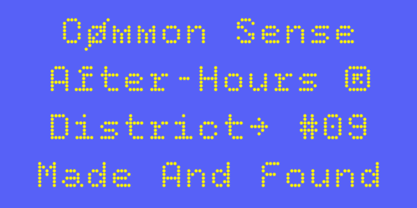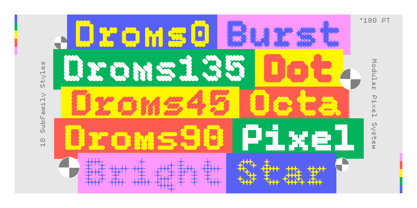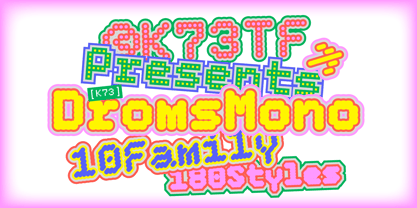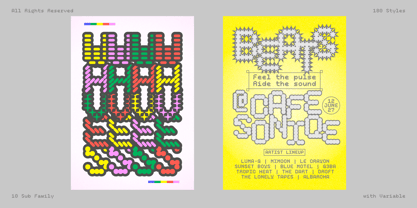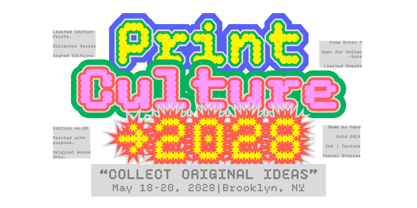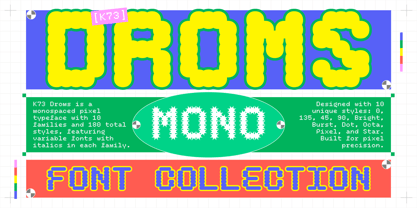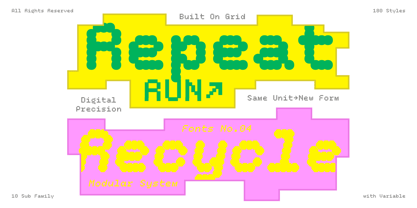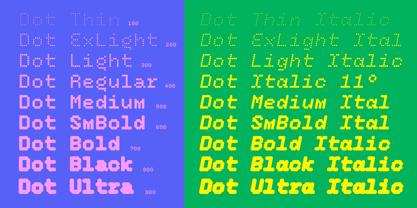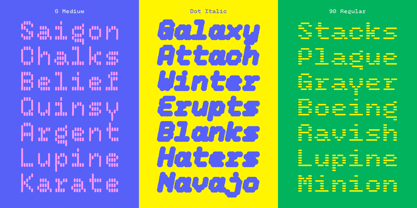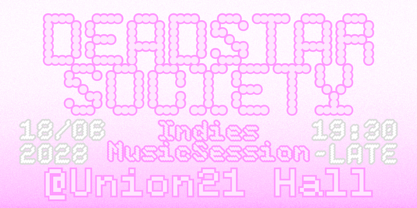
K73 Droms
Die Schriftfamilie K73 Droms wurde von Bagas Ferdiansah entworfen und von K73 Type Foundry veröffentlicht. K73 Droms enthält 190 Stile und Familienpaketoptionen. Mehr über diese Familie
K73 Droms is a monospaced pixel typeface built around precision, modular forms, and a distinctive digital aesthetic. The collection features 10 unique styles—0, 135, 45, 90, Bright, Burst, Dot, Octa, Pixel, and Star—each offering a different interpretation of pixel-based typography while maintaining a consistent monospaced structure.
With 10 families and 180 styles in total, K73 Droms provides a versatile system for experimental display typography, digital graphics, games, posters, and branding. Each family includes italic styles and is also available as a Variable Font, allowing greater control and flexibility across different design applications.